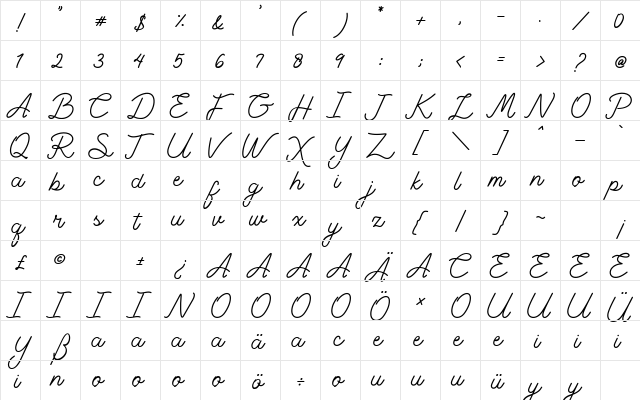
Retylle Solyta Regular
| Foundry | Creatype Studio Co. |
| Designer | Rian Rahardi |
Design Context for Retylle Solyta Typeface
Retylle Solyta takes a measured approach to typography — its balanced proportions and neutral character make it a reliable workhorse for both digital and print work.